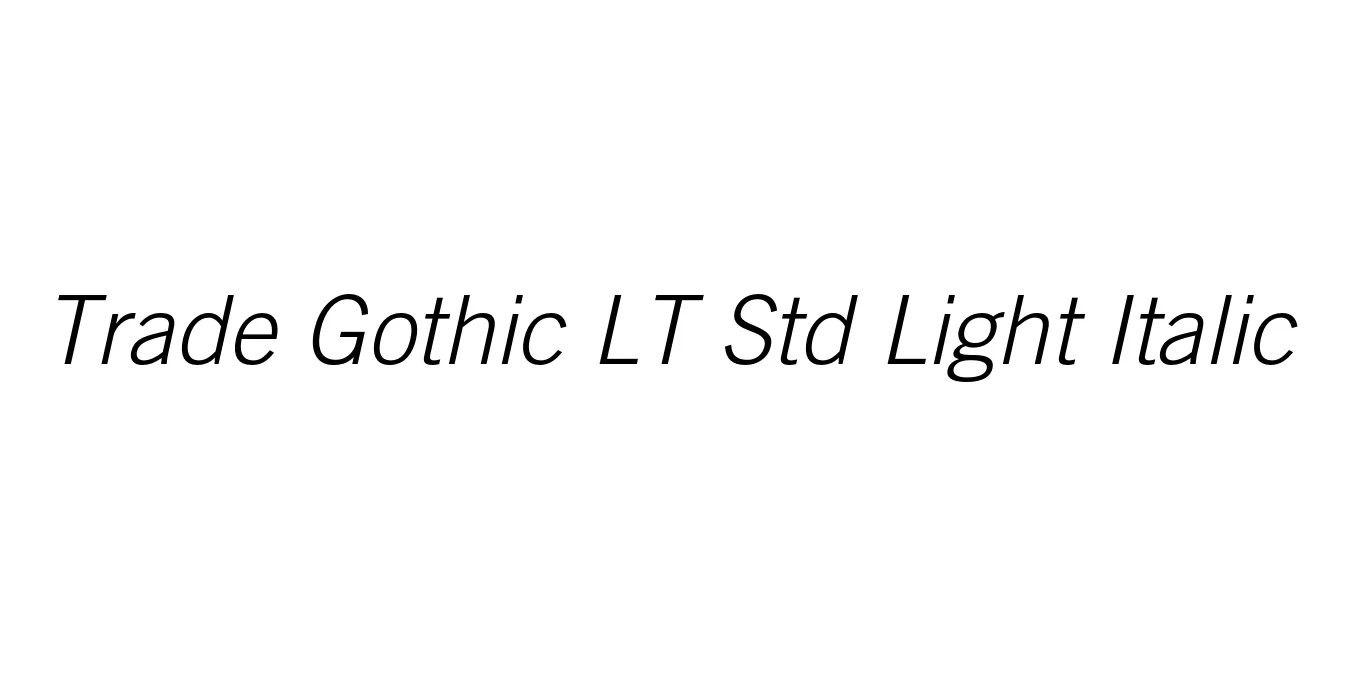
Trade Gothic LT Std Light Italic
Designed by Jackson Burke
Trade Gothic LT Std Light Italic is part of the larger Trade Gothic family designed by Jackson Burke between 1948 and 1960. Unlike many other gothic families that exhibit a unified design structure, Trade Gothic was developed over several years, resulting in a more organic and diverse collection of styles. This lack of strict uniformity gives the typeface a gritty, industrial character that distinguishes it from more clinical neo-grotesques, making it a highly versatile choice for designers looking for a typeface with a human touch.
The Light Italic weight specifically offers an understated elegance and a sense of lightness that is ideal for complex typographic hierarchies. Its subtle slant and thin stroke weights make it particularly effective for editorial design, where it can be used for captions, secondary headings, and pull quotes without distracting from the main content. Its enduring popularity in advertising and corporate branding is a testament to its readability and its ability to pair seamlessly with both serif and sans-serif fonts.
Trade Gothic LT Std Light Italic Best Uses
Ideal for pull quotes, captions, and footnotes in magazine layouts.
Excellent for secondary branding elements and professional correspondence.
Provides a sophisticated touch to print ads and promotional brochures.
Works well for stylistic emphasis and clean, readable sub-navigation.